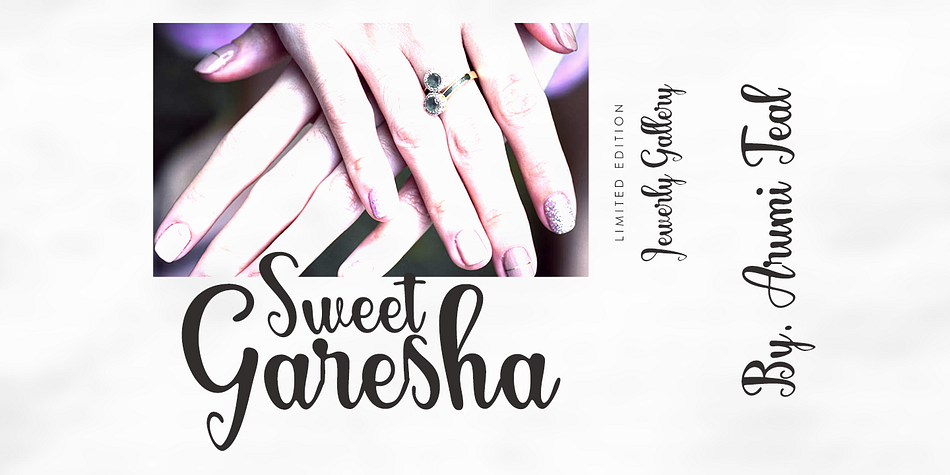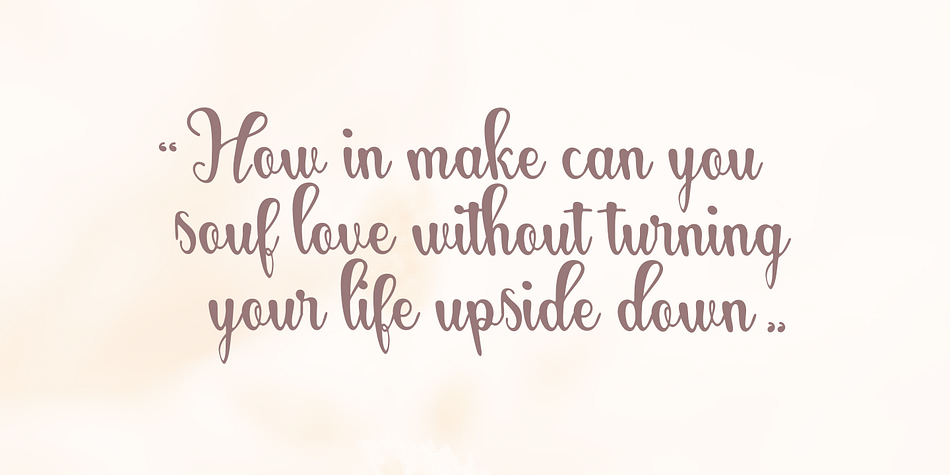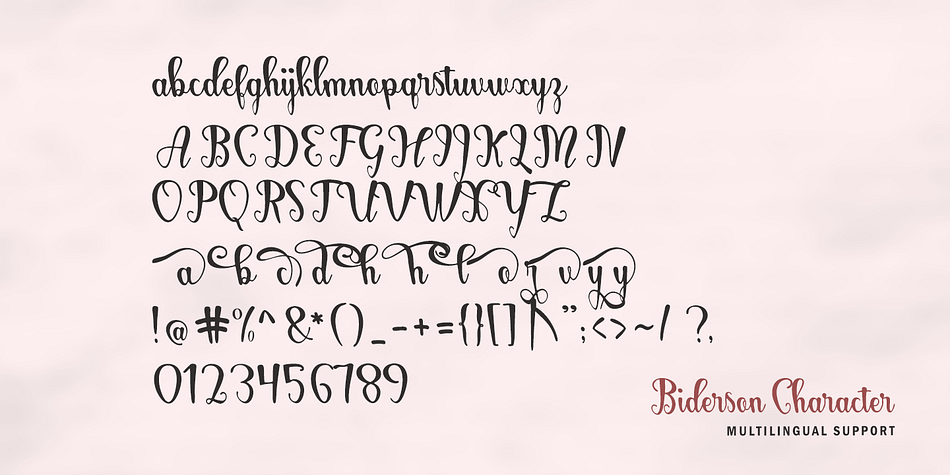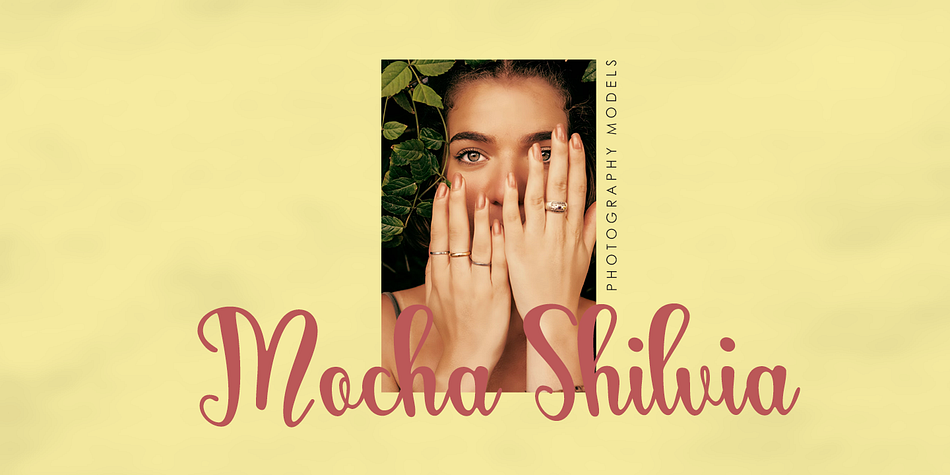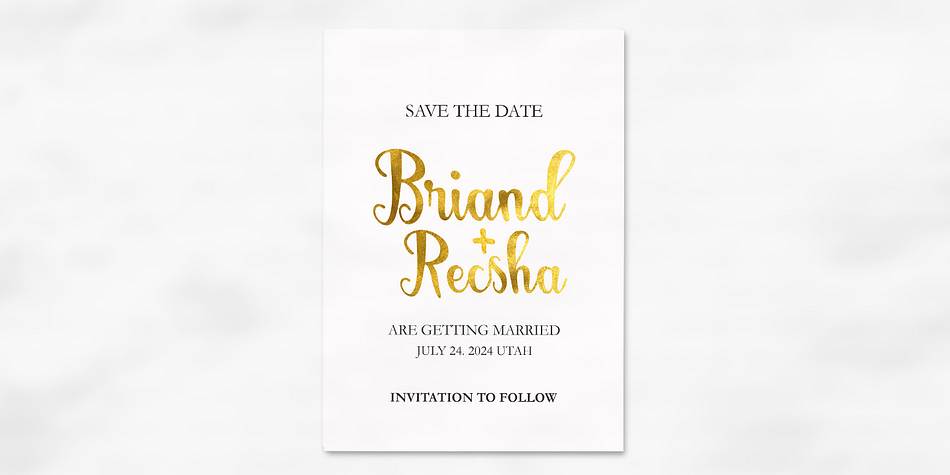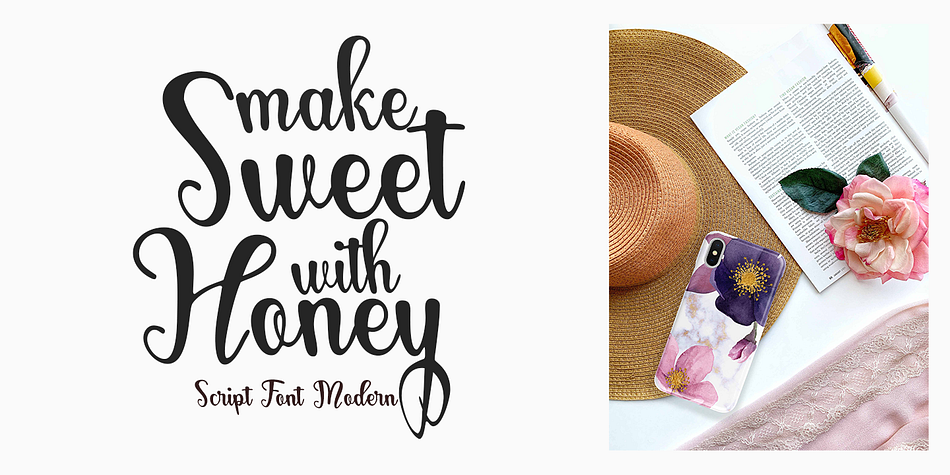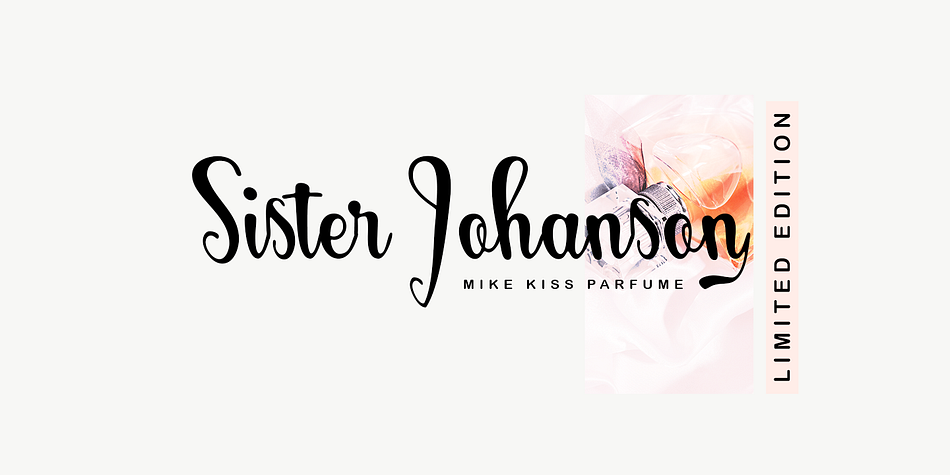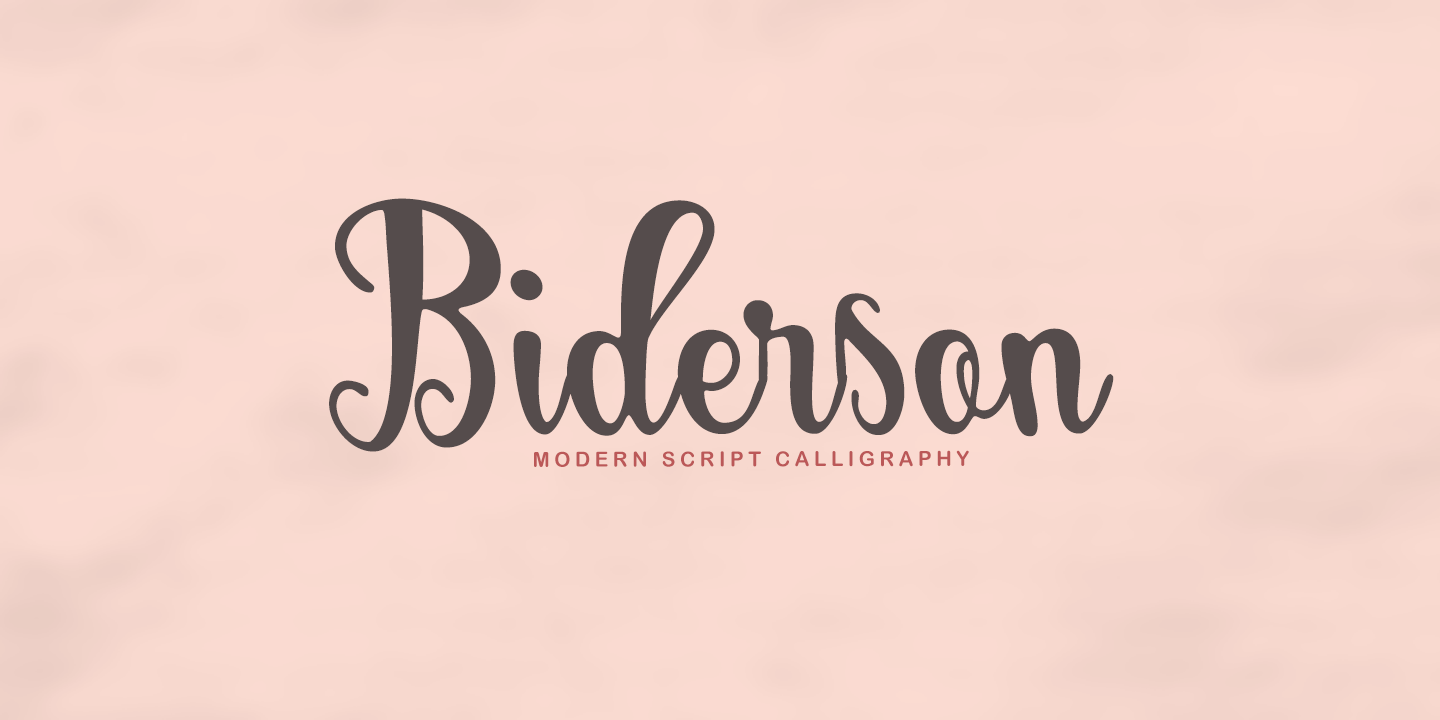
Biderson Script
Biderson Script is a script font family published by Gatype.
Introducing the new font Biderson Script! For those of you who need a touch of elegance combining classic style with modern calligraphy style for your design, this font is made for you!
Biderson Script was built with OpenType features and includes initial and ending stylistics, alternative characters for most lowercase letters, numbers, punctuation, alternatives, ligature and also supports other languages. There are more than 404 glyphs in this font.